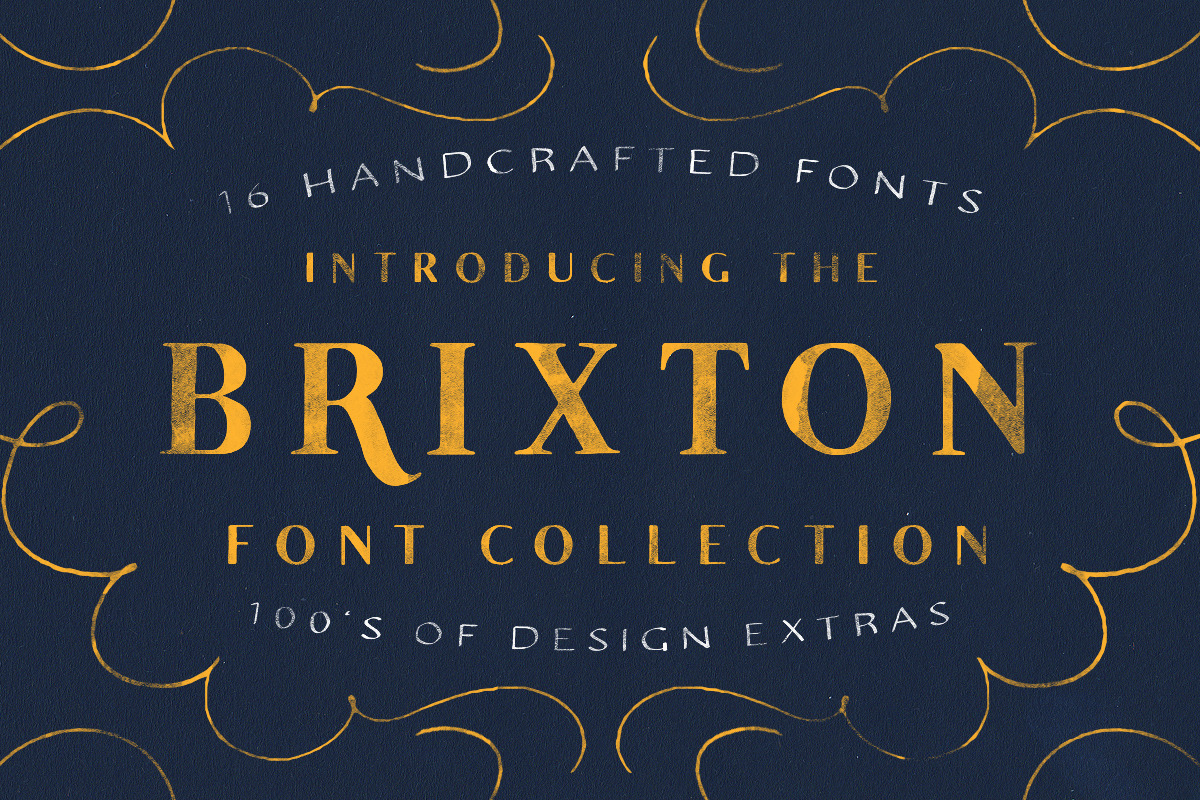
Introducing the whole Brixton Collection - A System of 16 Lovingly Handcrafted Fonts
This stunning collection of fonts has been something that I have been tinkering with since I started font design. The original Brixton font was one of my first ever designs and since its launch, I have added and edited the family to what it is here before you. I still don't think I am entirely done, I still want to add more! (and if I do, your purchase will give you free access to the updates)
What's inside?
The Original Brixton Family (6 fonts) - https://crmrkt.com/X5aVR - a handcrafted font family with a unique and timeless personality that is available in 3 weights; light, regular and bold (and outline for all three!). Also included are 12 vector decorative frames that complement the elegance of Brixton, alongside 100+ handcrafted swirls and curls.
The Brixton Sans Family (6 fonts) - https://crmrkt.com/y2meb - The sans companion for the original Brixton family (above) that also includes 3 weights; light, regular and bold and an outline version of each. Included with this download are 16 decorative shields and badges.
The Brixton Hand Family (2 fonts + 2 symbol fonts) - https://crmrkt.com/goRg8 - Brixton Hand and its sans-serif companion were consciously designed to function beautifully together within a variety of different design projects. From logo to apparel and from posters to the web. By correctly utilizing the available stylistic alternatives, the included extras, and catchwords, the pair truly shines!
The Brixton Line Family (2 fonts) - https://crmrkt.com/Q50dp - Brixton Line is a simple and effective handcrafted serif font but within a few clicks, you can transform Brixton Line into something unique and creative. With over 80 stylistic alternatives to choose from this font is great fun to work with!
100's of Design Extras - Included with Brixton and Brixton Sans (read above for details)
Stylistic Alternatives - Brixton, Brixton Line, and Brixton Hand all include Stylistic Alternatives